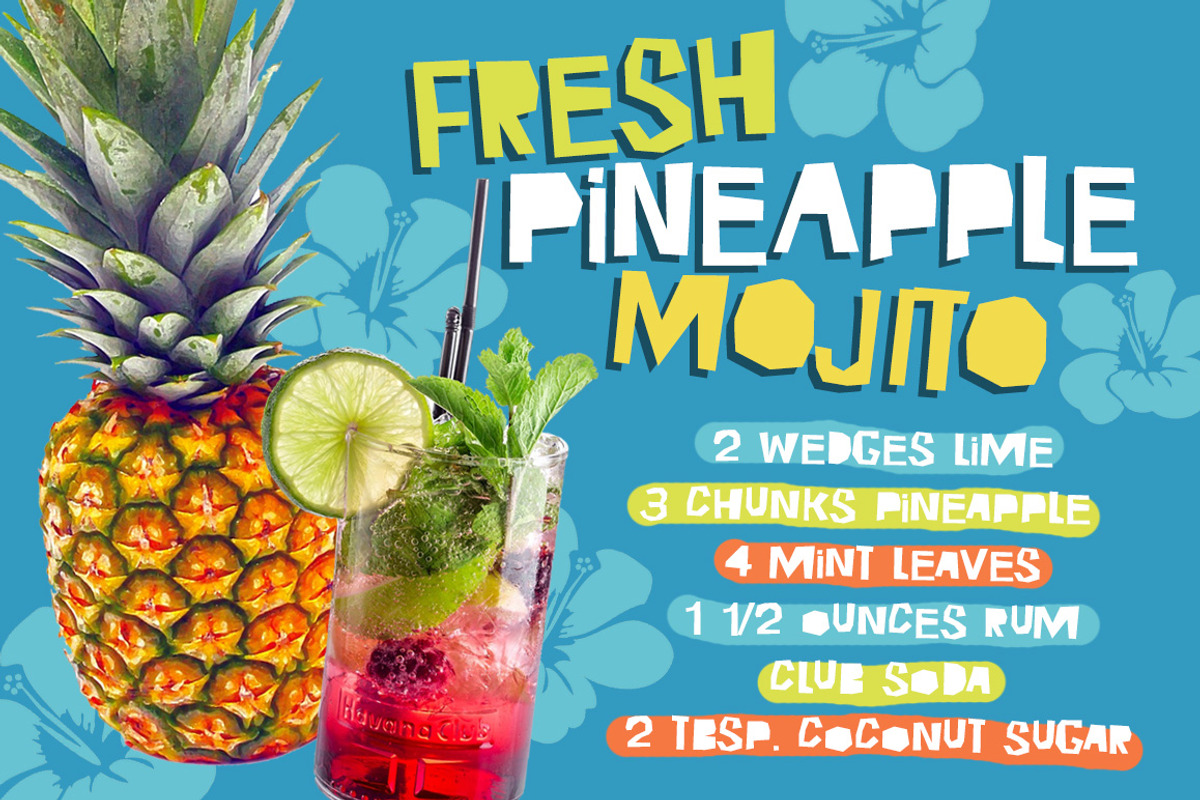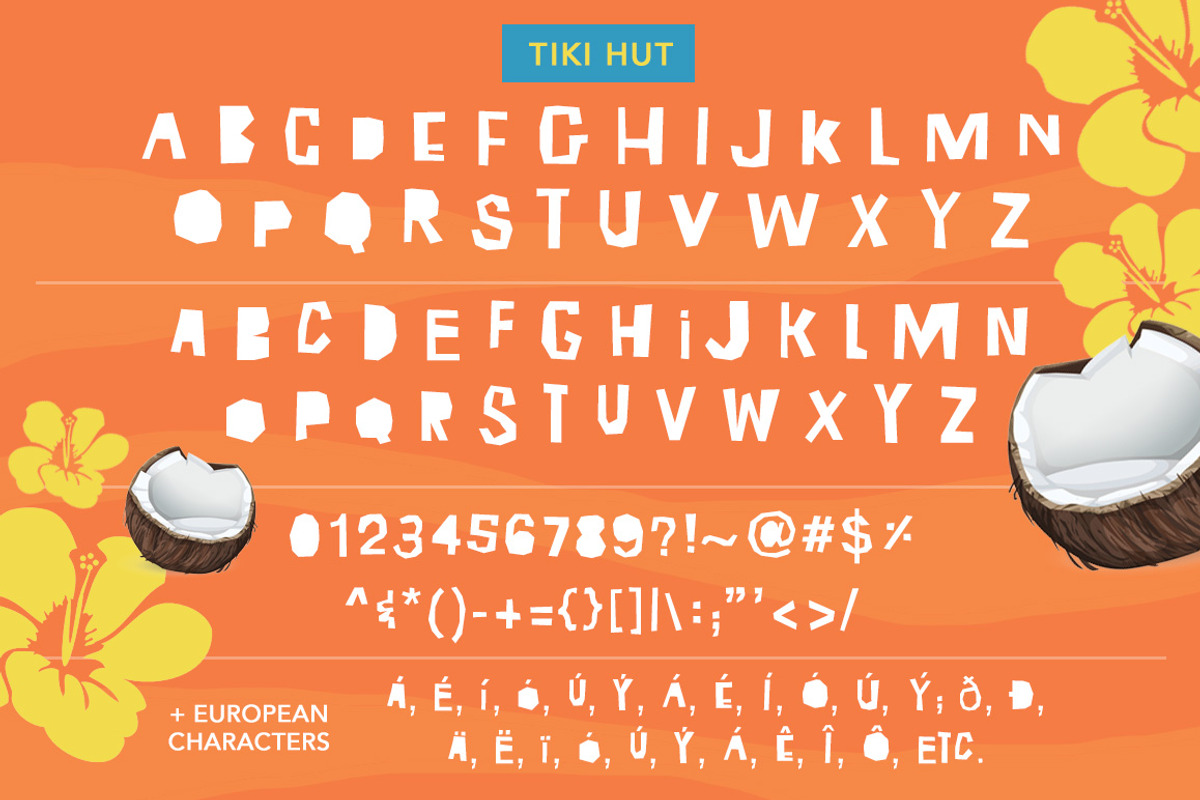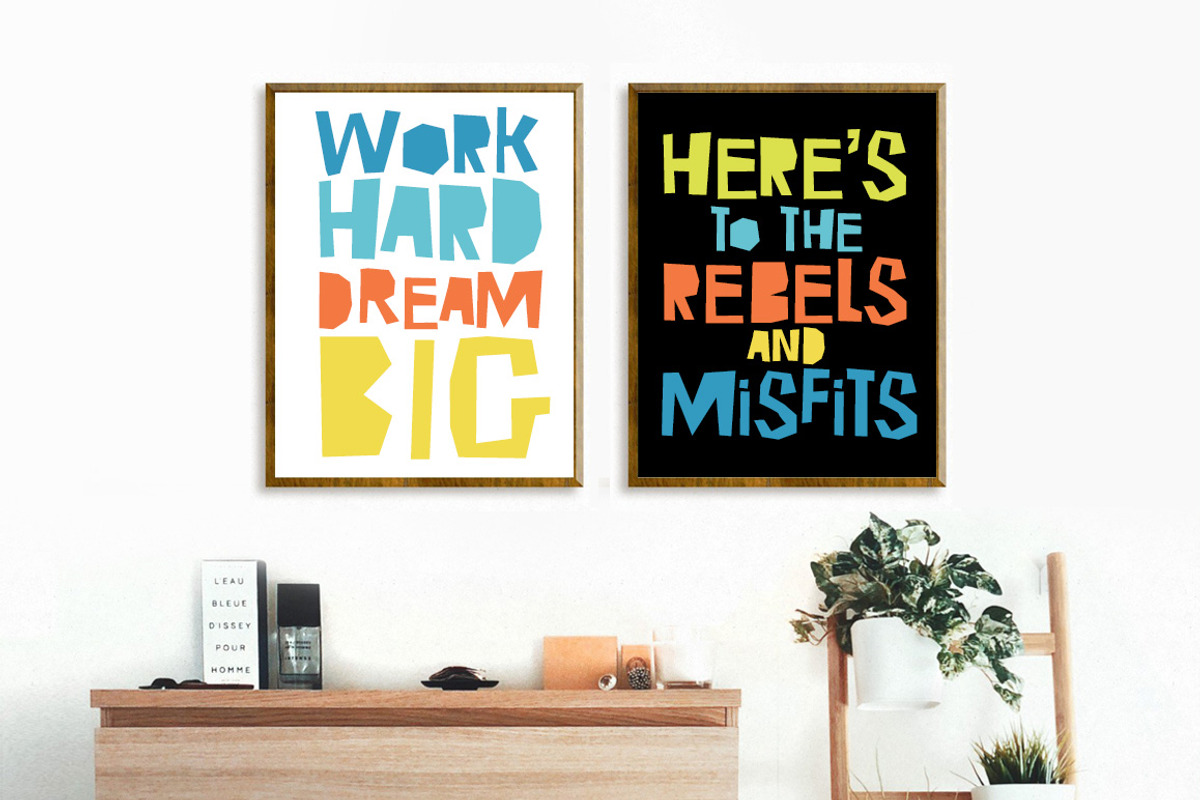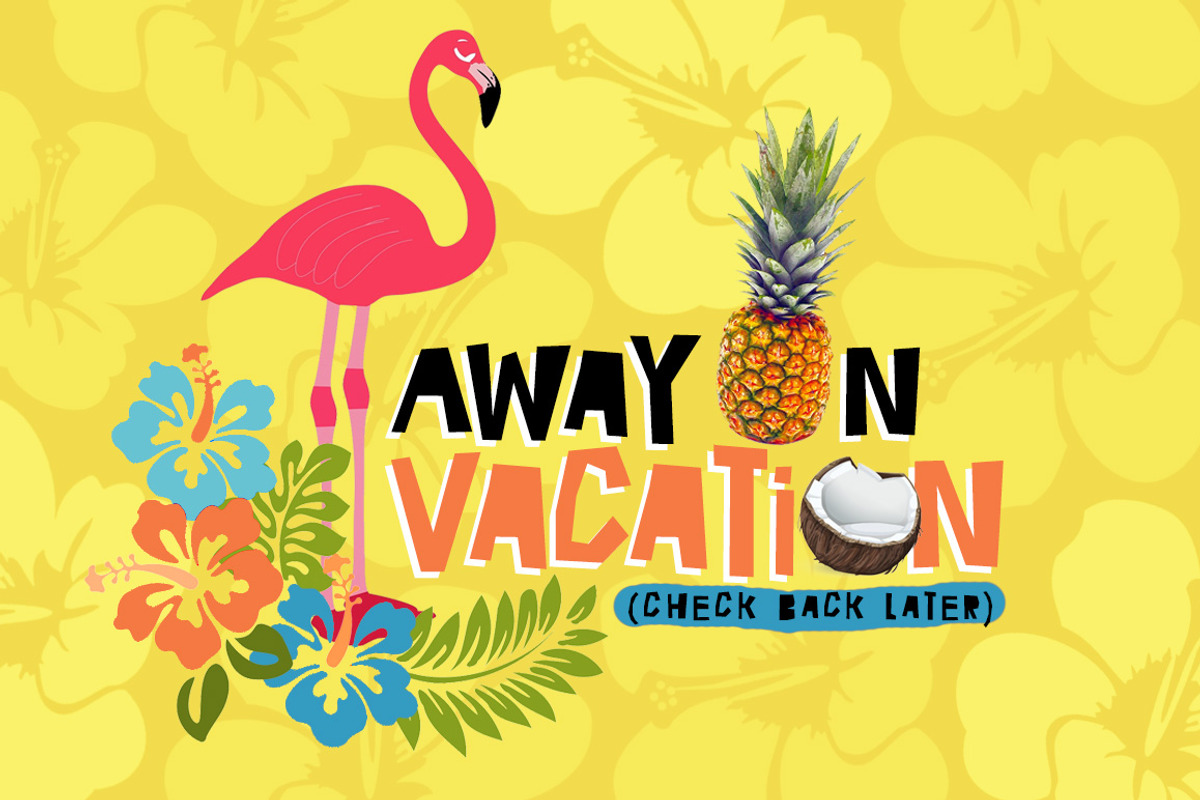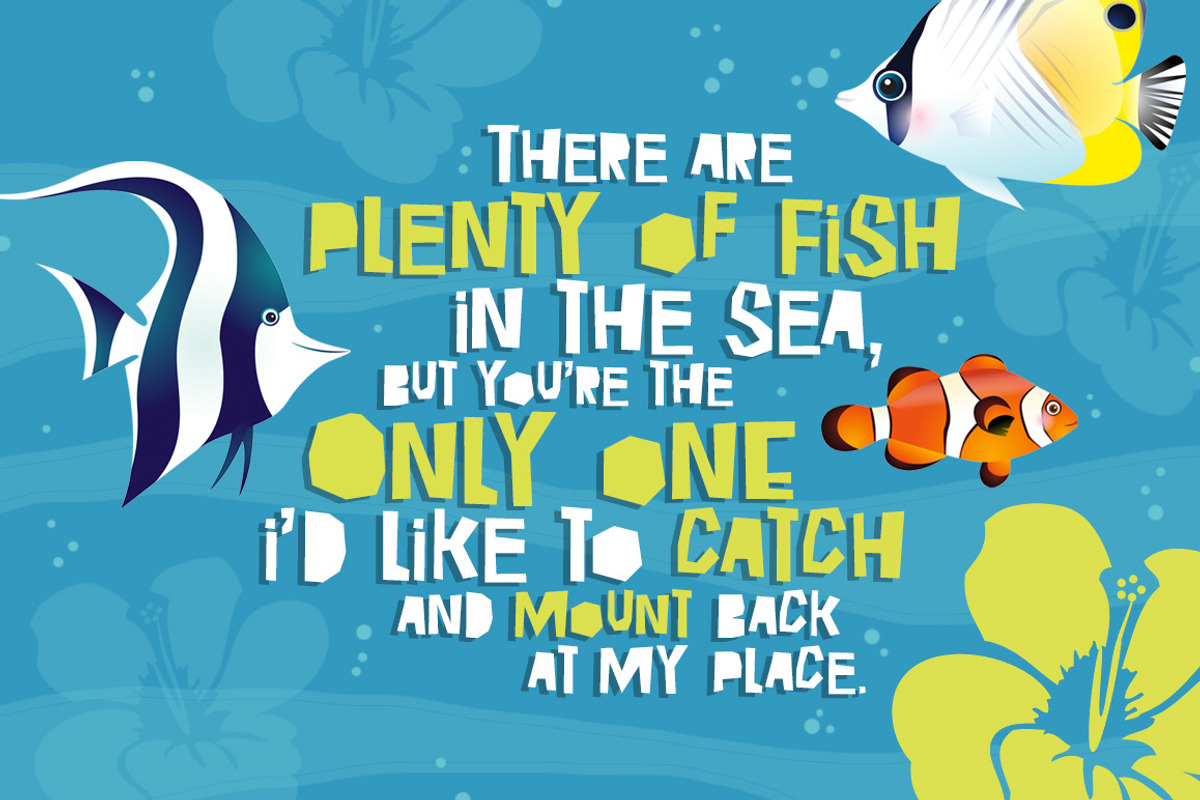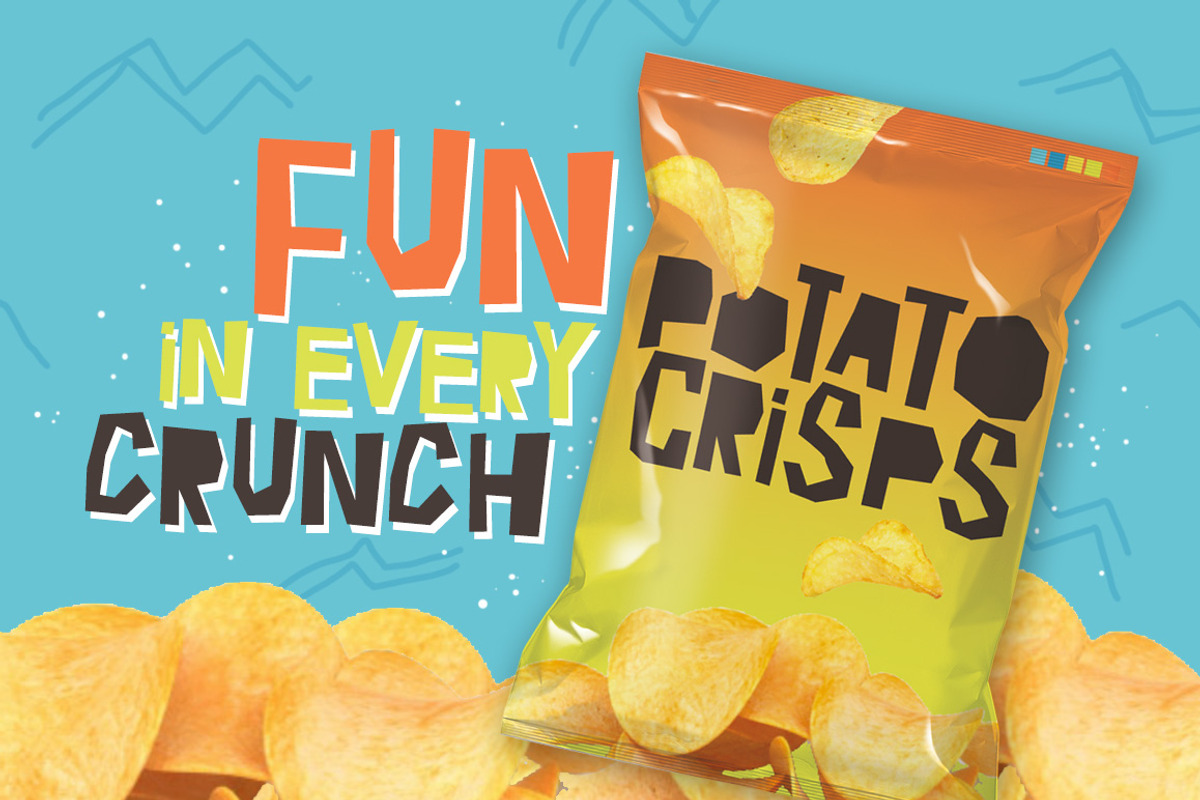
Tiki Hut Font
Tiki Hut is a fresh, fun, and exotic font with chill, tropical vacation vibes! Hard, uneven edges and weights add a whole new level of fun to your design projects. Use them for cards, posters, social media graphics, stationery, and a whole lot more.
Numerals and punctuation
European language characters